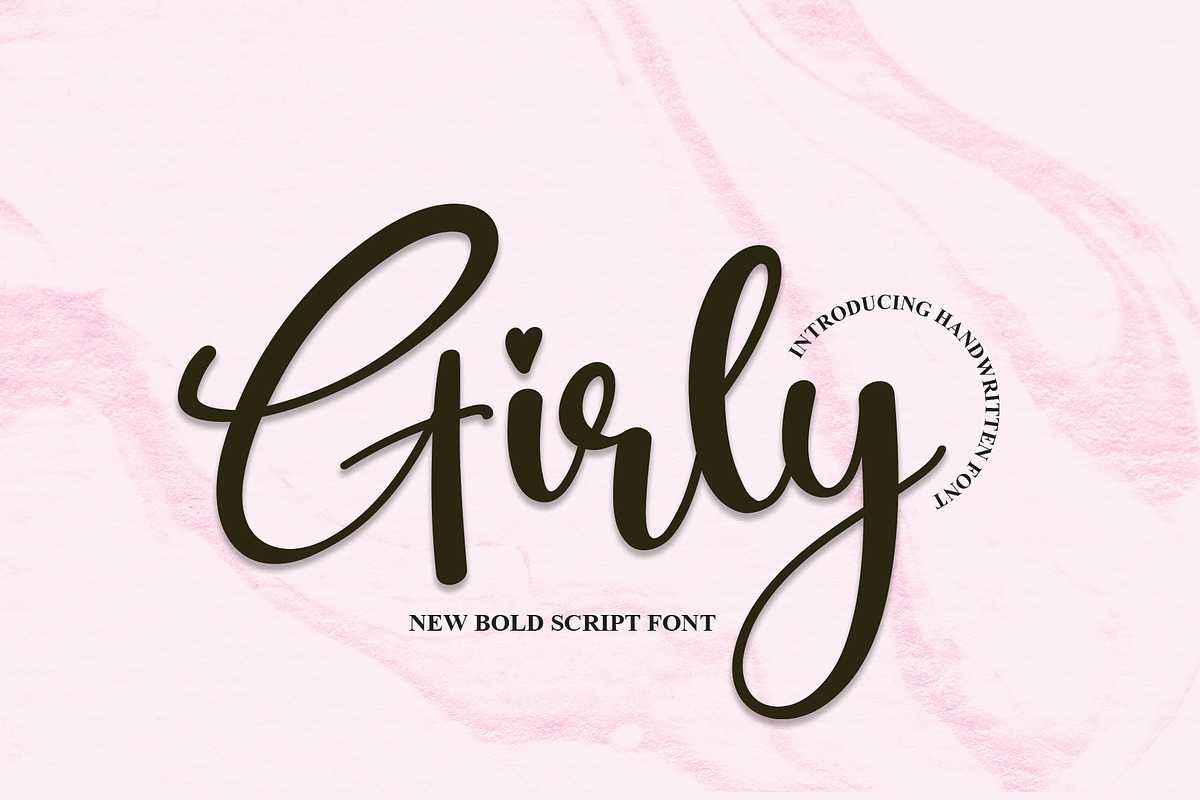
The Girly | Script Font Free Download is a playful and charming typeface designed to add a touch of femininity and elegance to your projects. With its flowing, cursive letterforms, this font is perfect for creating designs with a sweet, stylish vibe. Ideal for logos, invitations, branding, and social media posts, this script font will bring a personal and soft touch to any creative project.
Girly | Script Font Free Download is perfect for designers who want to add a soft and delicate script font to their collection. Whether you're designing for a wedding, fashion, or beauty brand, this font is sure to elevate your designs with its graceful and feminine appeal. Download it today and infuse your projects with a touch of girly charm!